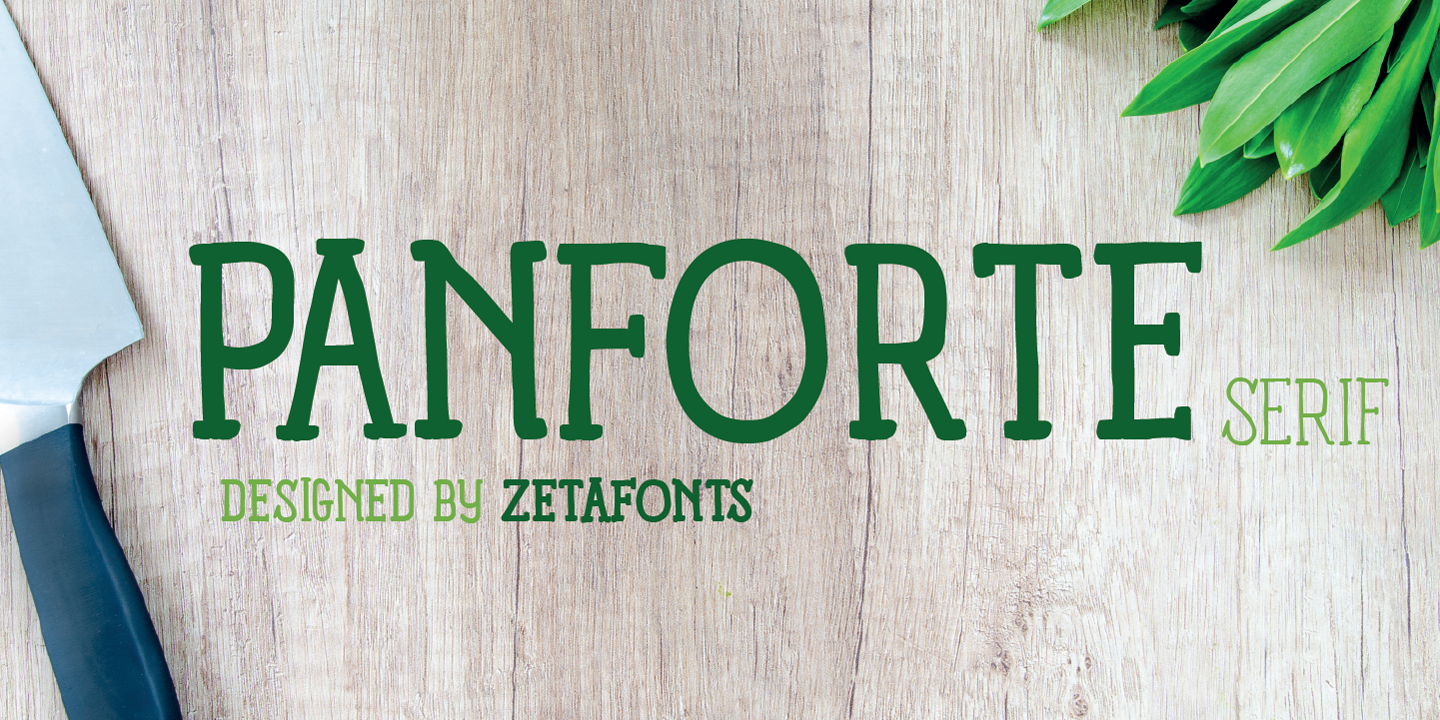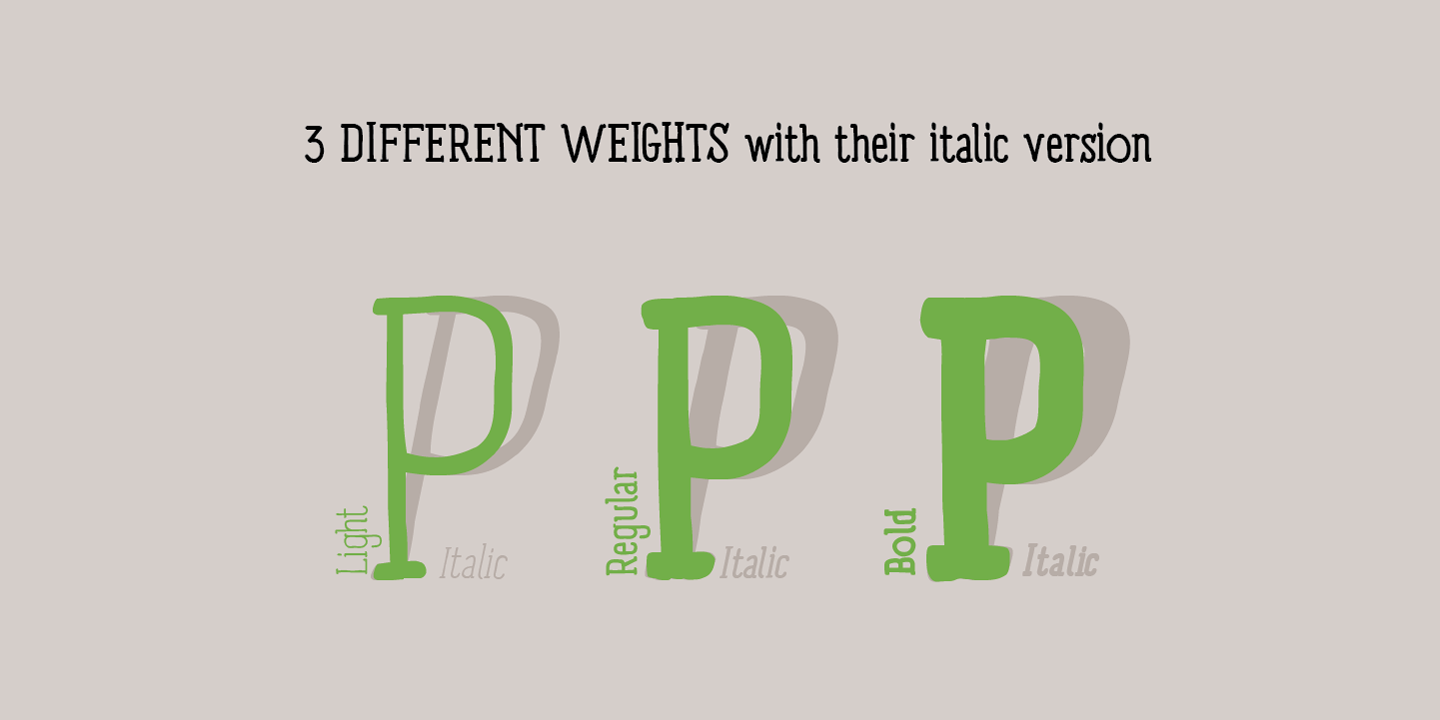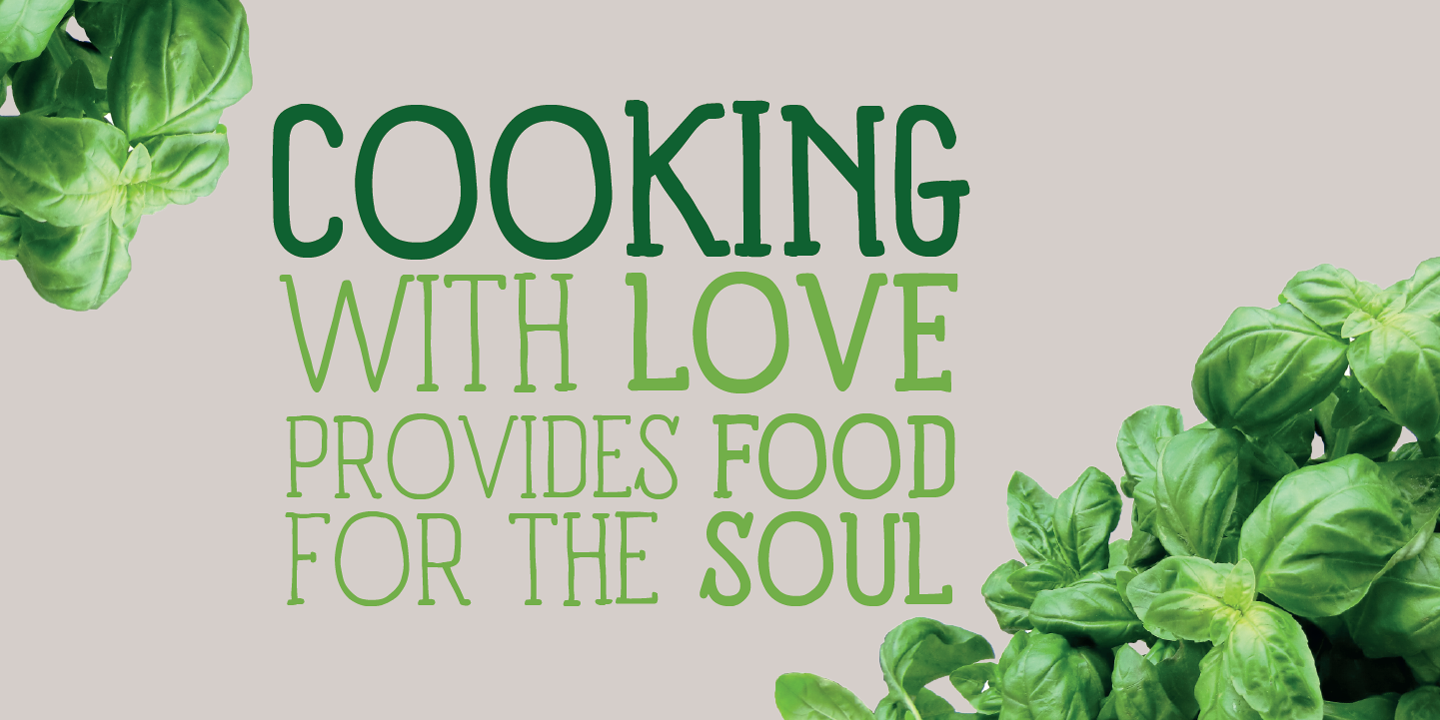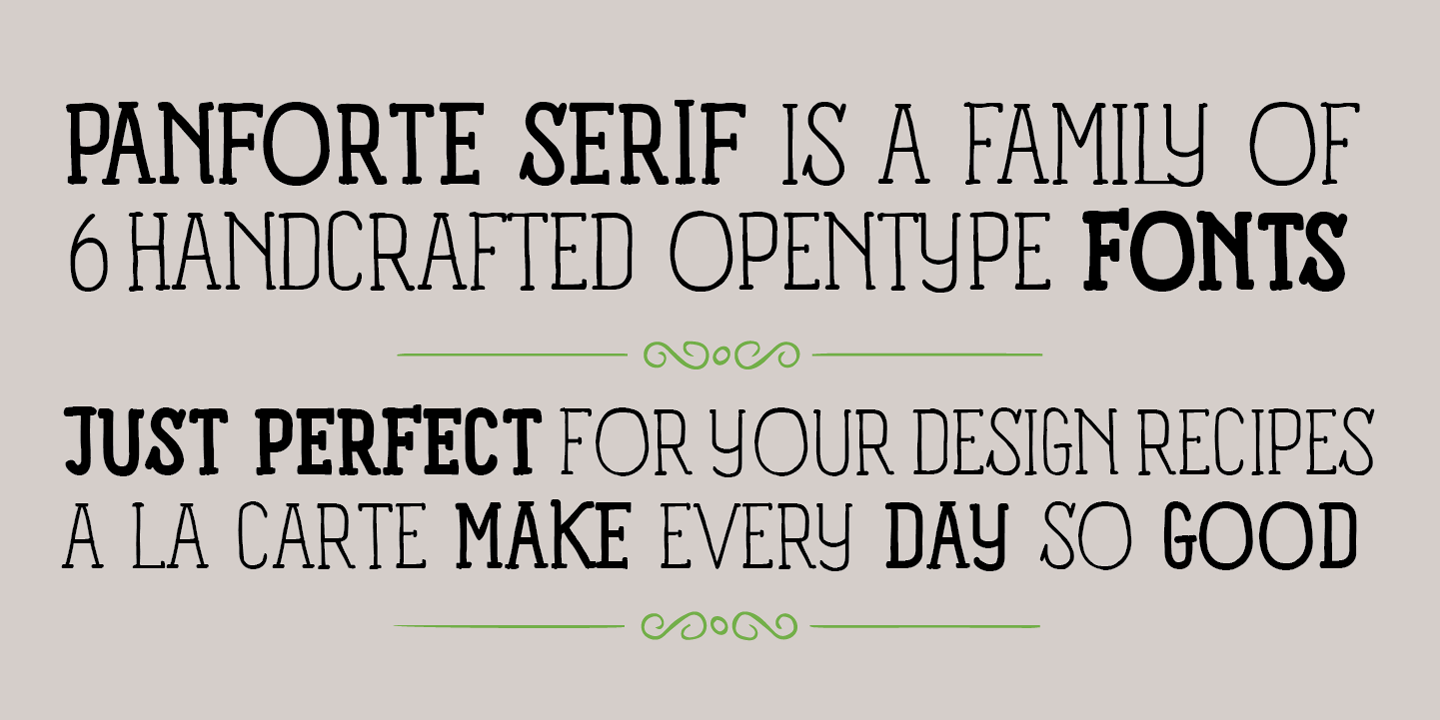
About the Panforte Serif Font
About Panforte Serif Font Family Panforte Serif is the basic ingredient for any tasty visual feast: a prime-cut font family, deliciously readable online and offline, space-saving and organic, appealing to hipster consumers and seasoned gluttons, Hand drawn in easy big strokes, its a very condensed typeface that allows you to typeset easily long texts
Lovers of world cuisine will be delighted to discover that it supports over 190 languages using the latin alphabet, Designers: Francesco CanovaroPublisher: ZetafontsFoundry: ZetafontsDesign Owner: ZetafontsMyFonts debut: Jul 25, 2013 Panforte Serif